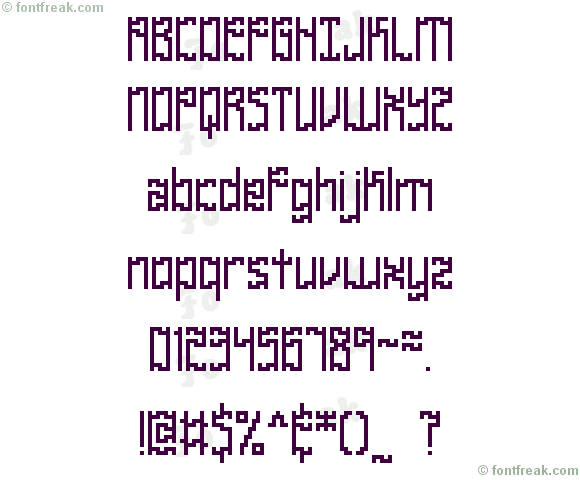
Zirconia BRK
Zirconia Cubic BRK
About Zirconia
The Zirconia font, designed by Ænigma Fonts, is a captivating display typeface that perfectly balances elegance and modernity. As a decorative font, Zirconia brings a distinctive charm with its unique cubic design elements, setting it apart from traditional typefaces. The strokes feature a moderate weight with subtle contrast, which adds visual intrigue while maintaining readability. The spacing is thoughtfully crafted, allowing for a harmonious flow in text, making it suitable for various design contexts.
Zirconia shines in a multitude of creative applications. It is particularly ideal for wedding invitations, where its whimsical style can evoke a sense of romance and celebration. Additionally, it works beautifully for movie posters, lending a contemporary flair that captures attention. Restaurant menus can also benefit from the font's distinctive character, infusing the design with a touch of sophistication. Moreover, small business owners looking to create standout branding materials will find Zirconia to be an excellent choice, helping their promotional content to resonate with customers. Content creators seeking to enhance their online presence will appreciate its striking appearance in digital graphics and social media posts.
The target audience for Zirconia includes graphic designers and small business owners who are eager to make a memorable impression with their designs. Content creators will also find this font appealing, as its unique style can elevate their projects and attract greater engagement.
What truly makes the Zirconia font stand out is its ability to blend artistic flair with functional design. Its distinctive cubic characteristics and versatility ensure that it can adapt to various contexts while maintaining an eye-catching presence. For those interested in enhancing their design projects, a Zirconia font free download is an opportunity not to be missed. This font is sure to inspire creativity and elevate any visual communication.